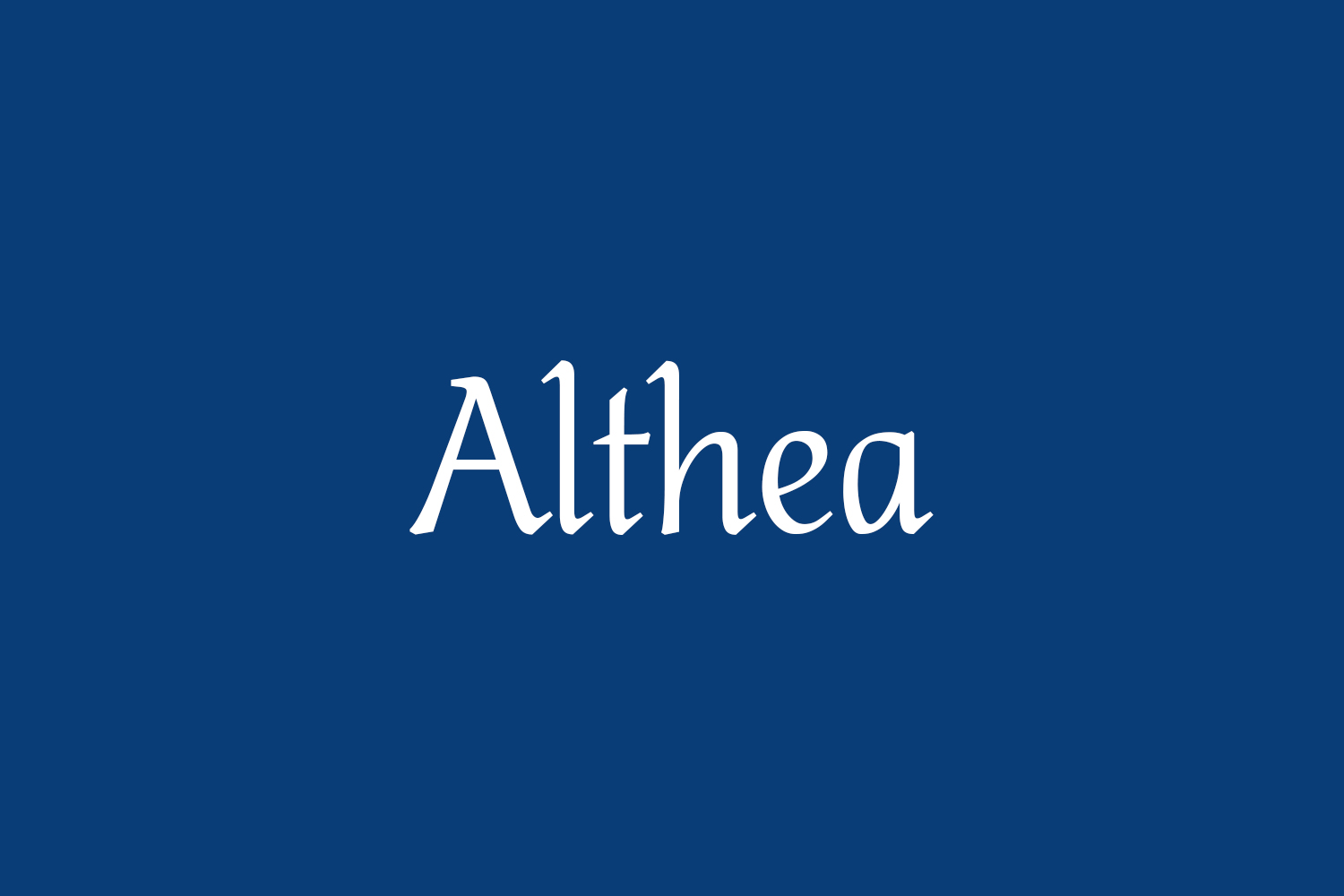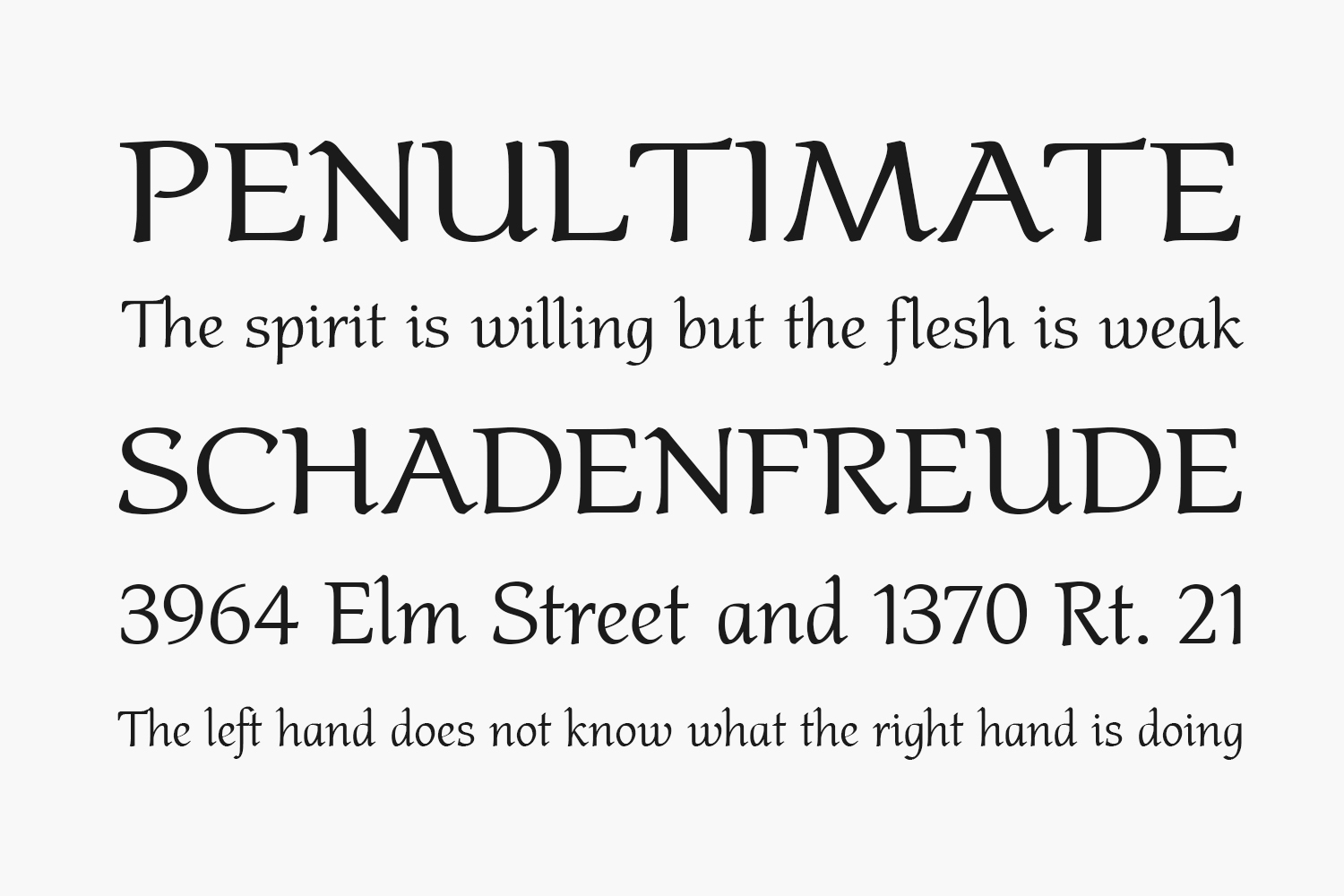
Althea Free Font Family is a ligature-free, modern upright cursive typeface with proportional lining figures. Althea Free Font Family was designed by Paweł Burgiel and is free for personal use only. Please purchase the full version for commercial use.
Designed by Paweł Burgiel